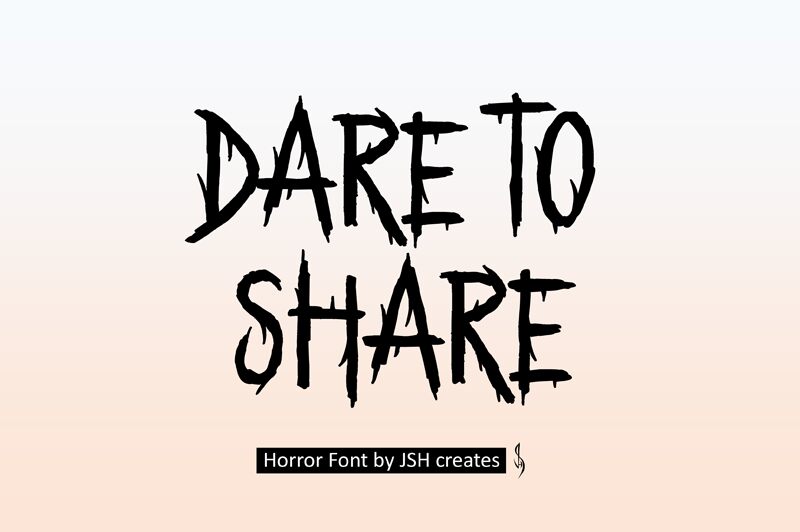
Dare to Share font by JSH creates is a chilling, condensed display font that perfectly captures the essence of eerie aesthetics. With its jagged edges and haunting style, this scary font injects an element of suspense and excitement into any design. Ideal for Halloween projects, horror-themed posters, or spine-tingling branding materials, Dare to Share promises to engage viewers with its striking presence.